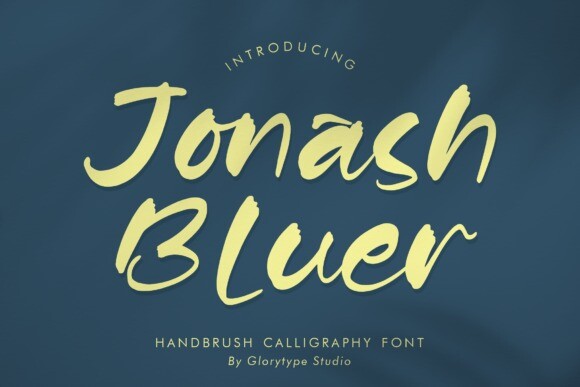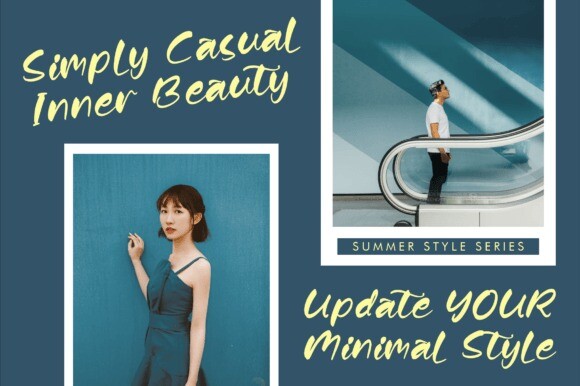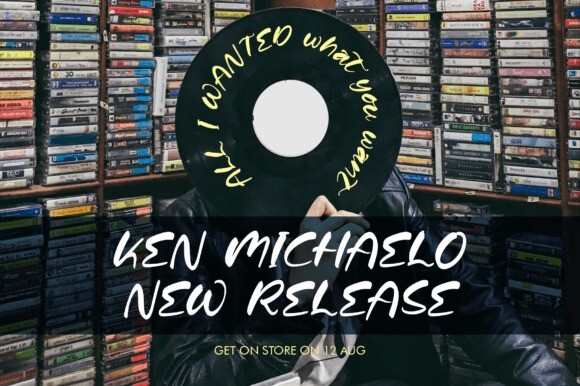
Jonash Bluer Font
Jonash Bluer – Handbrush Calligraphy Font , from Glorytype Studio, suitable for any projects such as: logos, branding projects, homeware designs, product packaging, mugs, quotes, posters, shopping bags, t-shirts, book covers, name card, invitation cards, greeting cards, label, photography, watermark, special events, and all your other lovely projects that need a beautiful script taste.